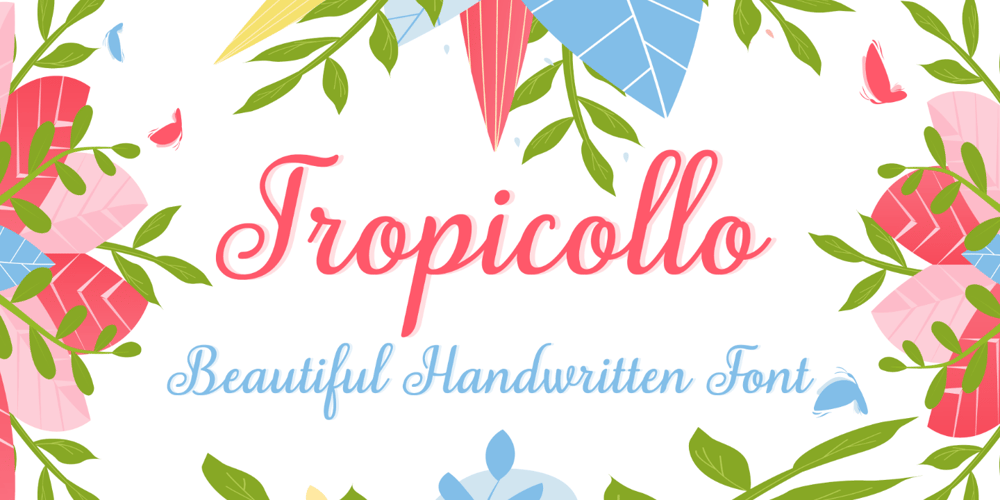
Tropicollo Font Family was designed by Oussama Horchani and published by OzType.. Tropicollo contains 2 styles and family package options. Tropicollo is a handwritten mono weight cursive font. Its super clean and tidy design will turn any idea into a true standout end result! Works great applied to logos, prints, quotes, magazine headers, clothing, advertisements, product designs, labels, and much more!